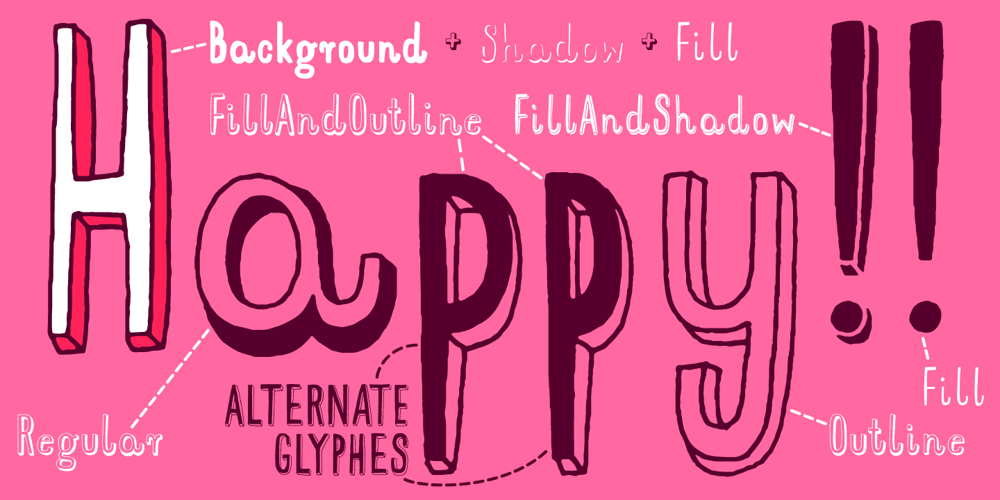
Mr Happy
Mr Happy font
Mr Happy Font Family was designed by Aleksandra and Daniel Mizielińscy and published by Hipopotam Studio. Mr Happy contains 7 styles and family package options. Hand drawn narrow typeface designed for one of our books. You can layer different styles over the background style to achieve lots of colorful effects. Use just one style to get a single color letter or set the shadow and fill over the background style to get a full, three color mode. Mr Happy has upper and lowercase characters with up to three alternate glyphs. Build in OpenType Contextual Alternates feature will automatically set alternate glyphs depending on frequency of appearance of the same character (even in web font but only in HTML5 browsers). The script doesn’t throw random glyphs. For example in the word “HIPPOPOTAMUS” you will automatically get three different “P” glyphs and two “O” glyphs. It really works great but of course you can always fine tune it by hand.